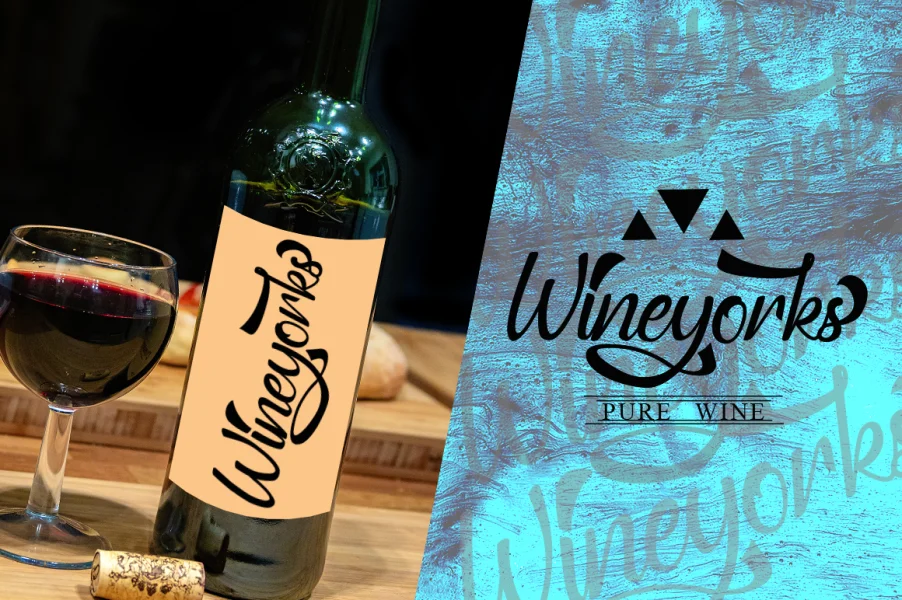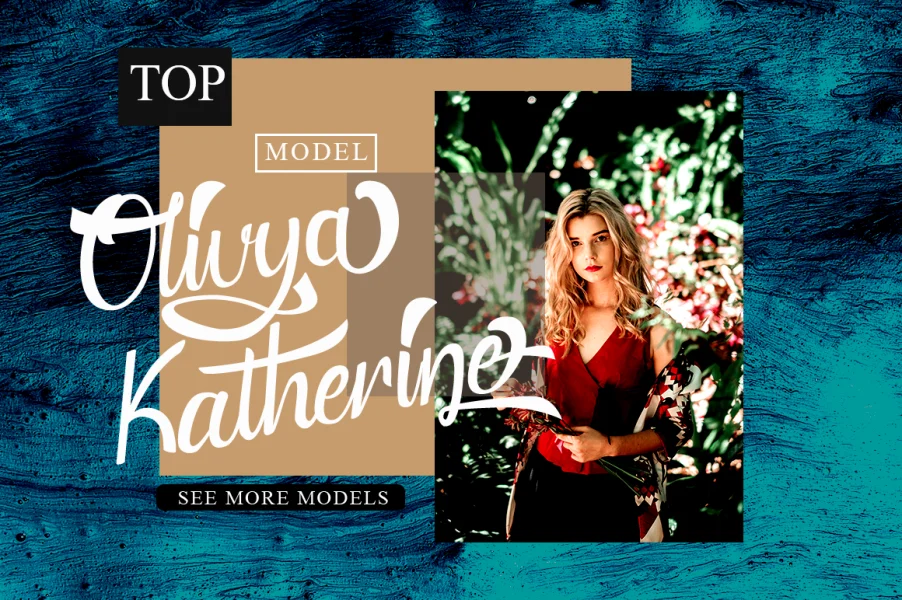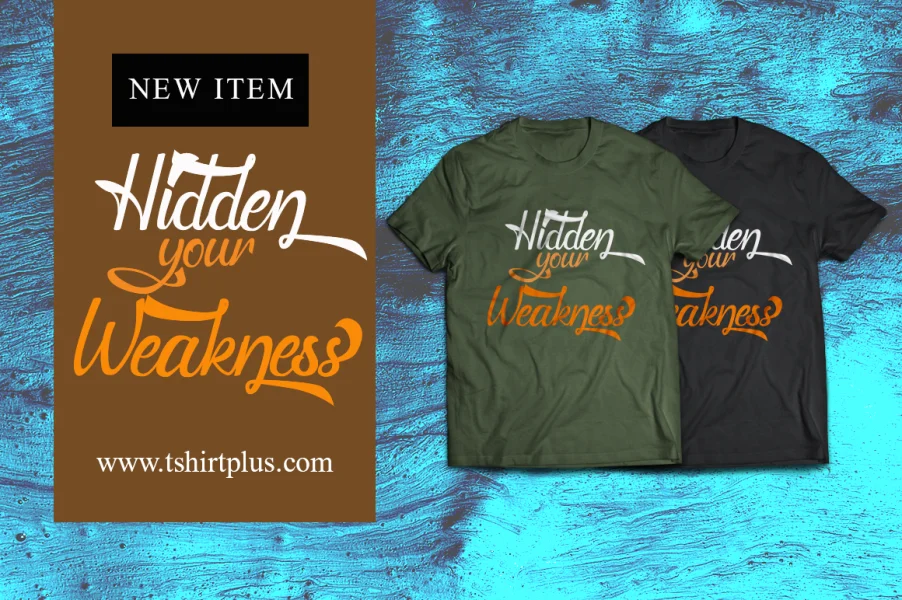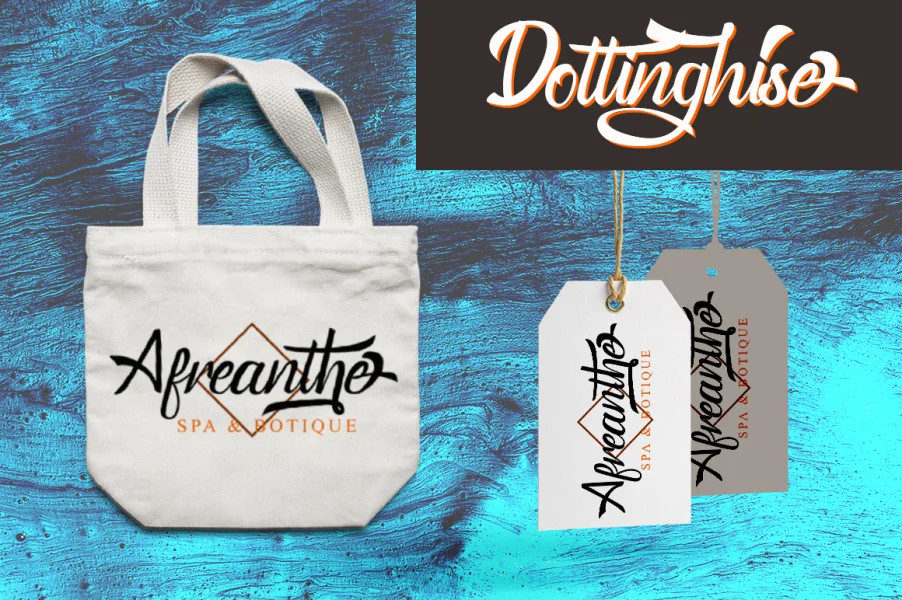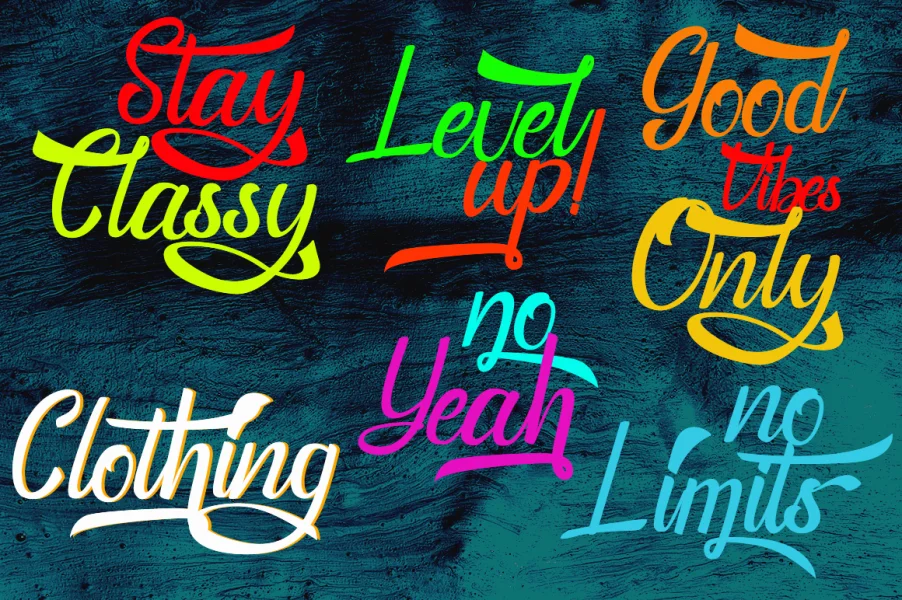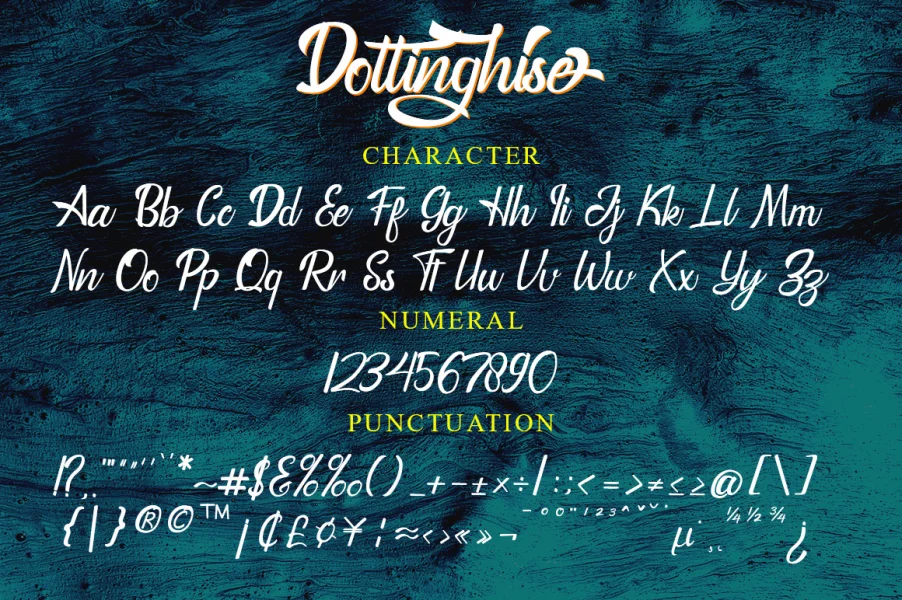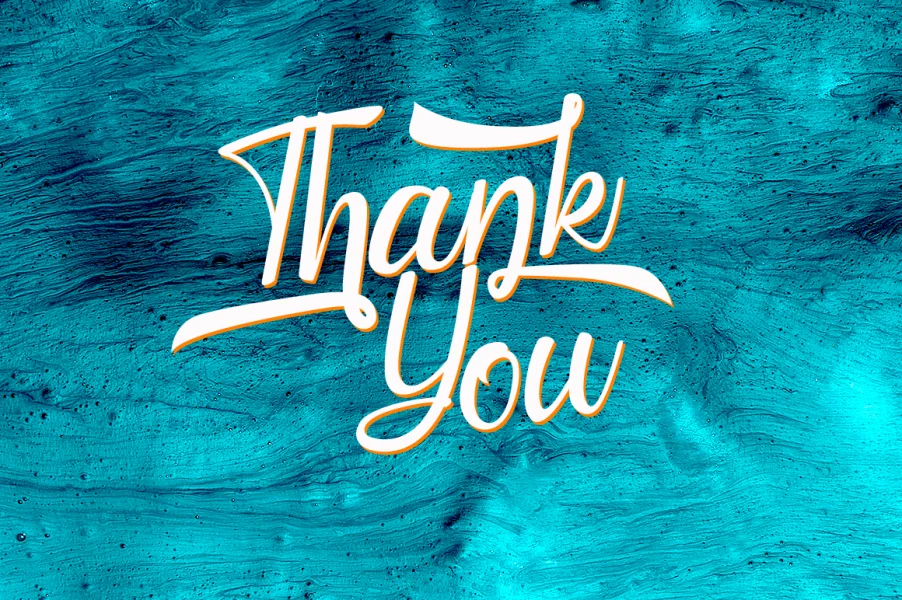
Introducing. Dottinghise is a handwritten, smooth, modern and classic, calligraphy wavy, which was created to meet the needs of your next design project. Still Shine, Can be used for various purposes. such as the title, signature, logo, correspondence, wedding invitations, letterhead, signage, labels, newsletters, posters, badges, etc.